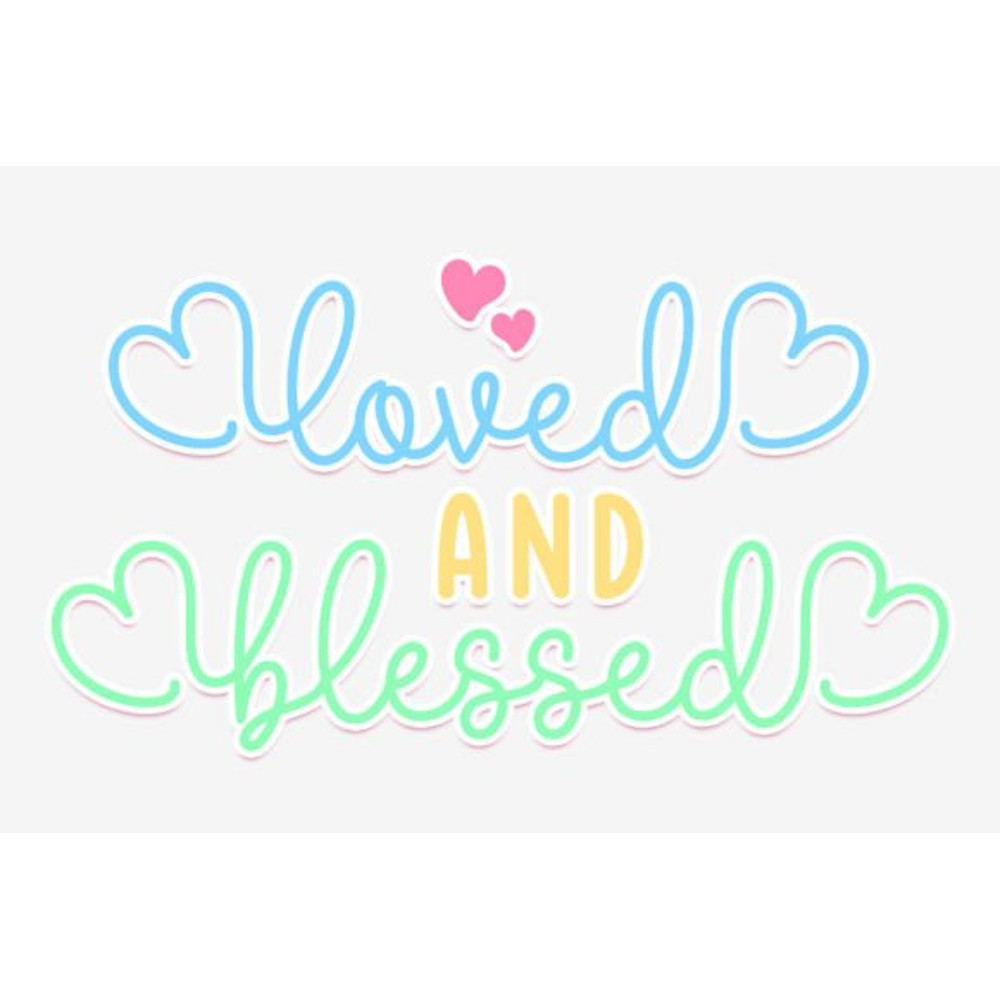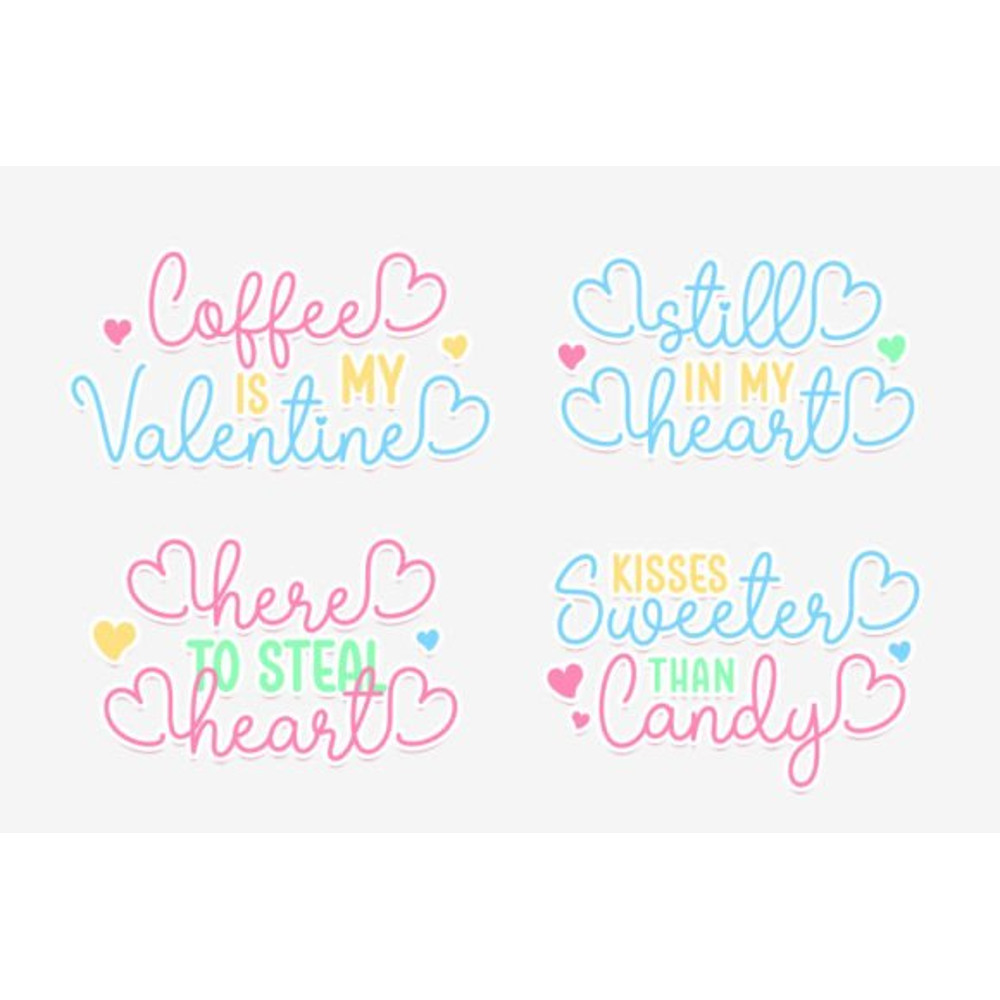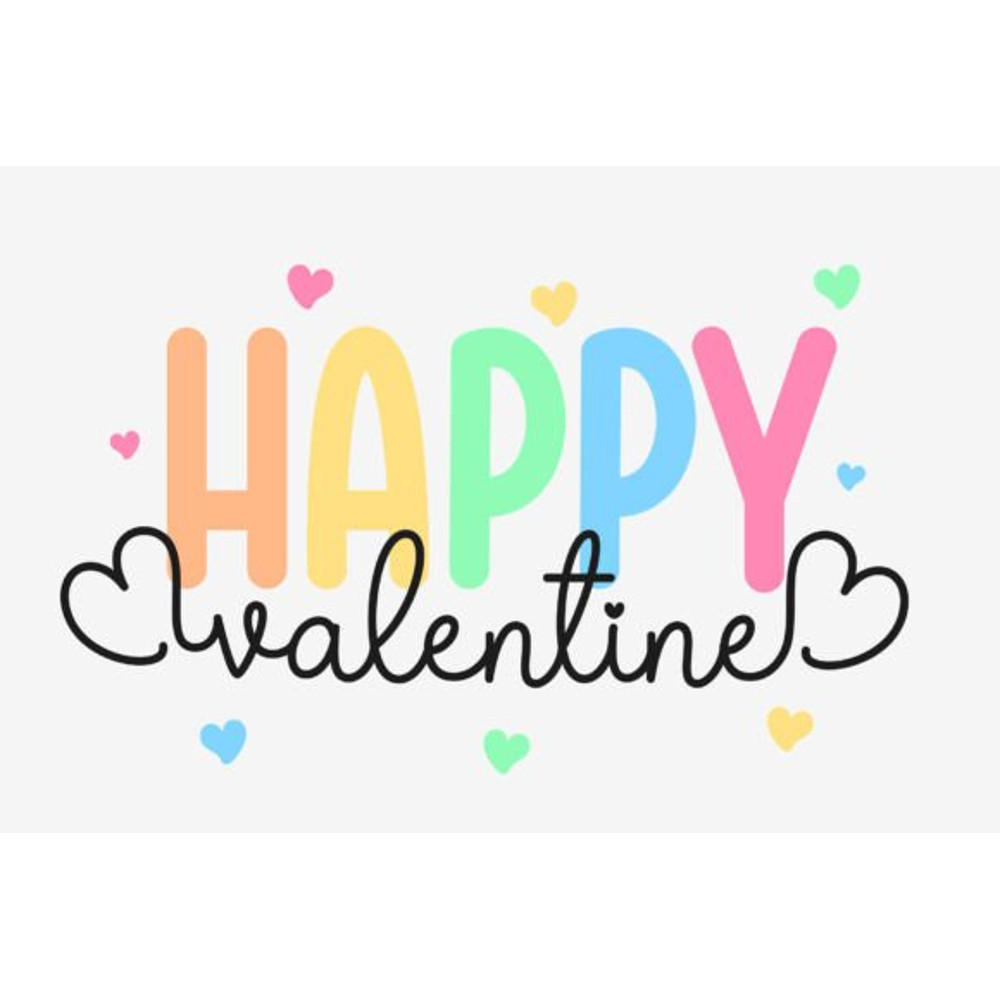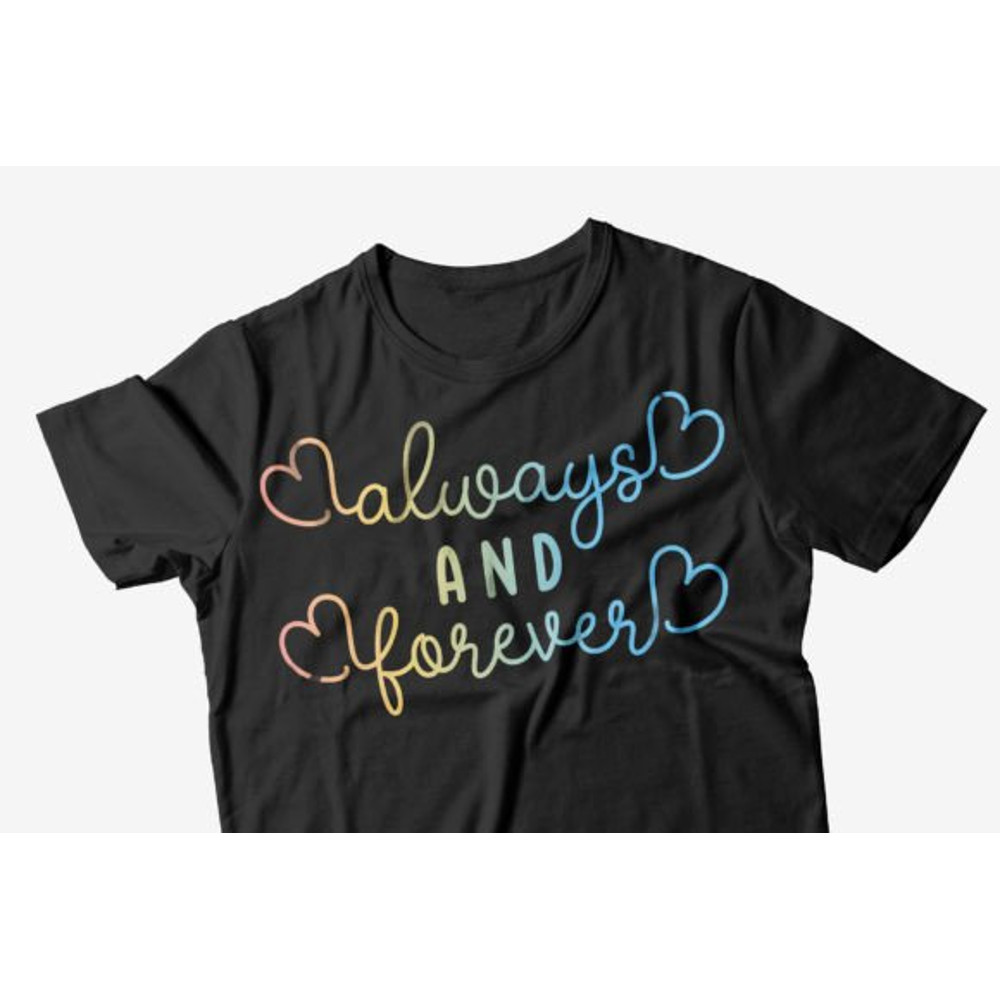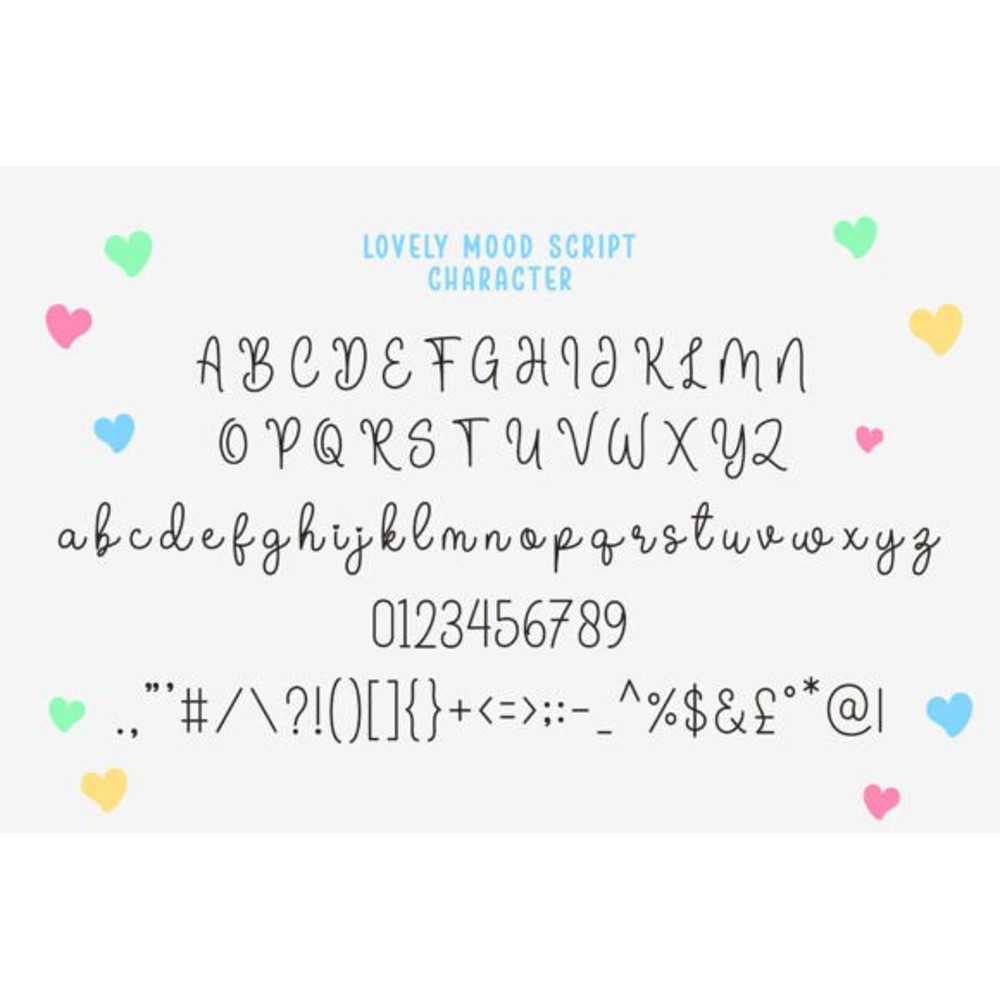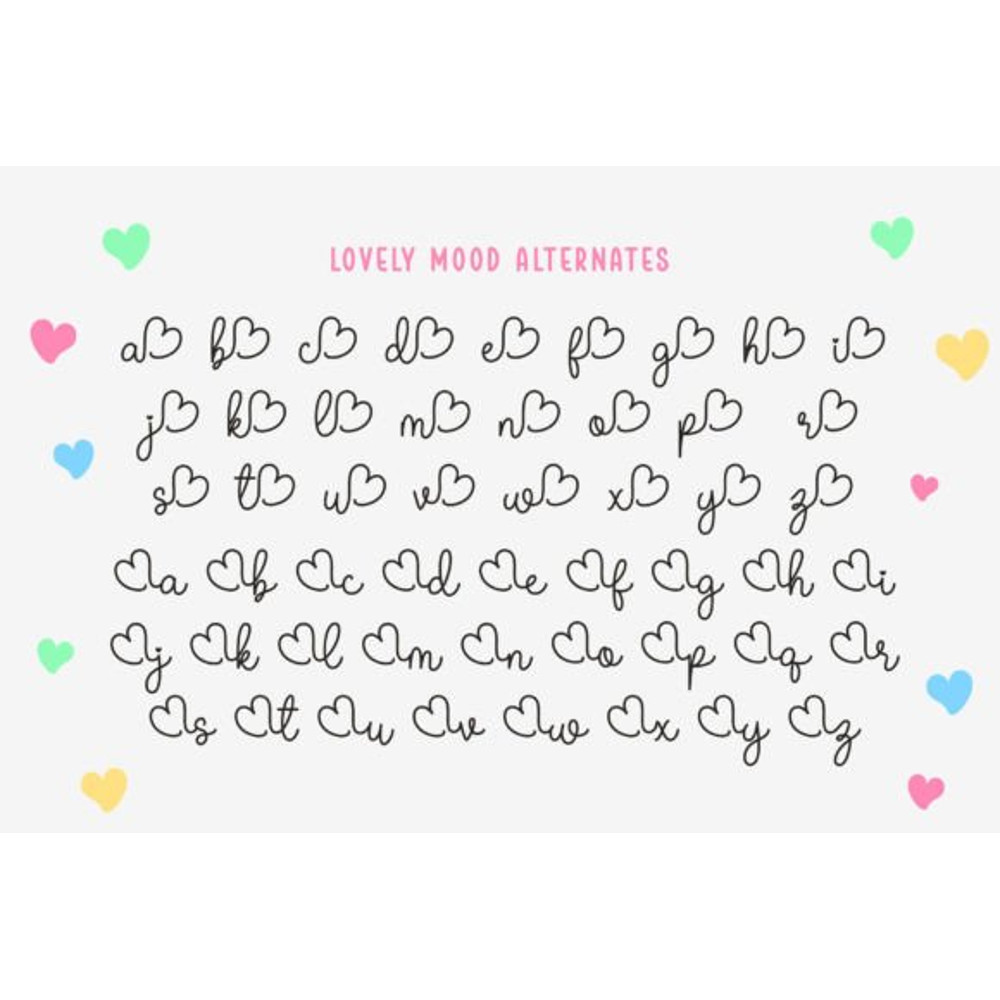
Lovely Mood Duo Font
Lovely Mood is a lovely and cute font duo with two styles – script monoline and sans display. This font is inspired by Valentine’s day, which makes it suitable for this holiday, as well as other designs that require a romantic touch. Lovely Mood is PUA encoded which means you can access all of the glyphs and swashes with ease!